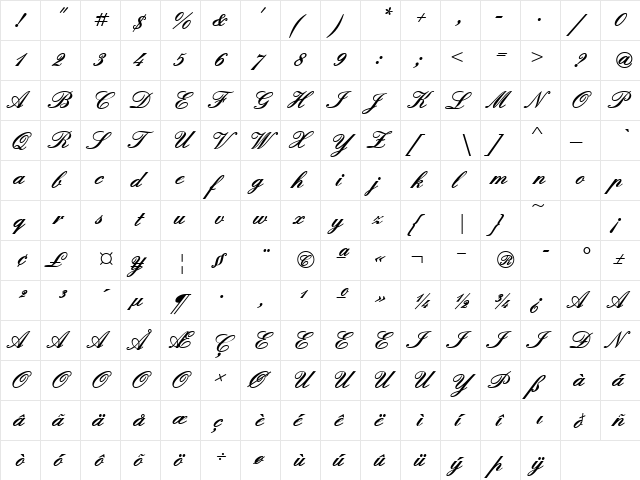
QuadrilleScriptBlackSSK Bold Font Preview
Design Context for QuadrilleScriptBlackSSK Typeface
QuadrilleScriptBlackSSK brings a calligraphic fluidity to the page — its connecting strokes and expressive curves give it an unmistakably human quality. Its bold stroke weight gives it real presence on the page.
Font Pairing: Combine QuadrilleScriptBlackSSK with a simple geometric sans for maximum contrast — the tension between flowing curves and clean structure is a classic typographic pairing.
Pro Tip: Pair QuadrilleScriptBlackSSK with a clean sans-serif for supporting text. The contrast between fluid script and geometric structure creates an elegant typographic hierarchy.